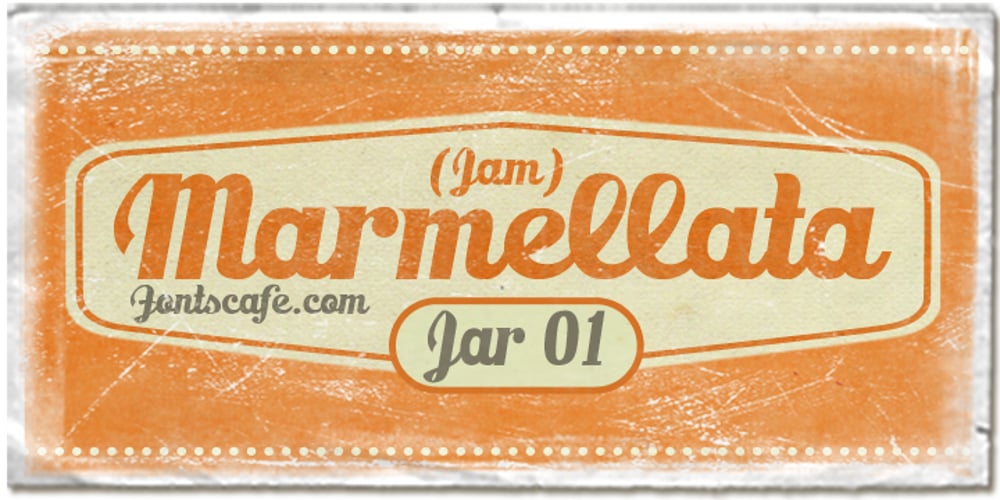
Marmellata Jar 01 Font Family was designed by published by Fontscafe. Marmellata Jar 01 contains 1 styles and family package options. When you think of marmalade or jam (that’s Marmellata in Italian), images of a happy breakfast table are conjured up into the mind, with of course the unforgettable emotive response accompanied. These emotions are exactly what our Marmellata fonts can conjure up for your designs as well (we agree, nothing can beat marmalade on a hot toast)! Our Jar 1 is ideal for all designs where you need to send across a feeling of care, childhood, comfort, motherhood or friendship…amongst all those ideas you will get on your own! With that classic breakfast table feel, you are sure to connect on a very comforting level with all those who view your designs using these fonts. May we suggest, these fonts go very well with unusually dull colours, and can add a spark of life to the most mundane of words! Try getting a taste of our Jar 2 if you want even more of the classic taste (sorry, touch!).